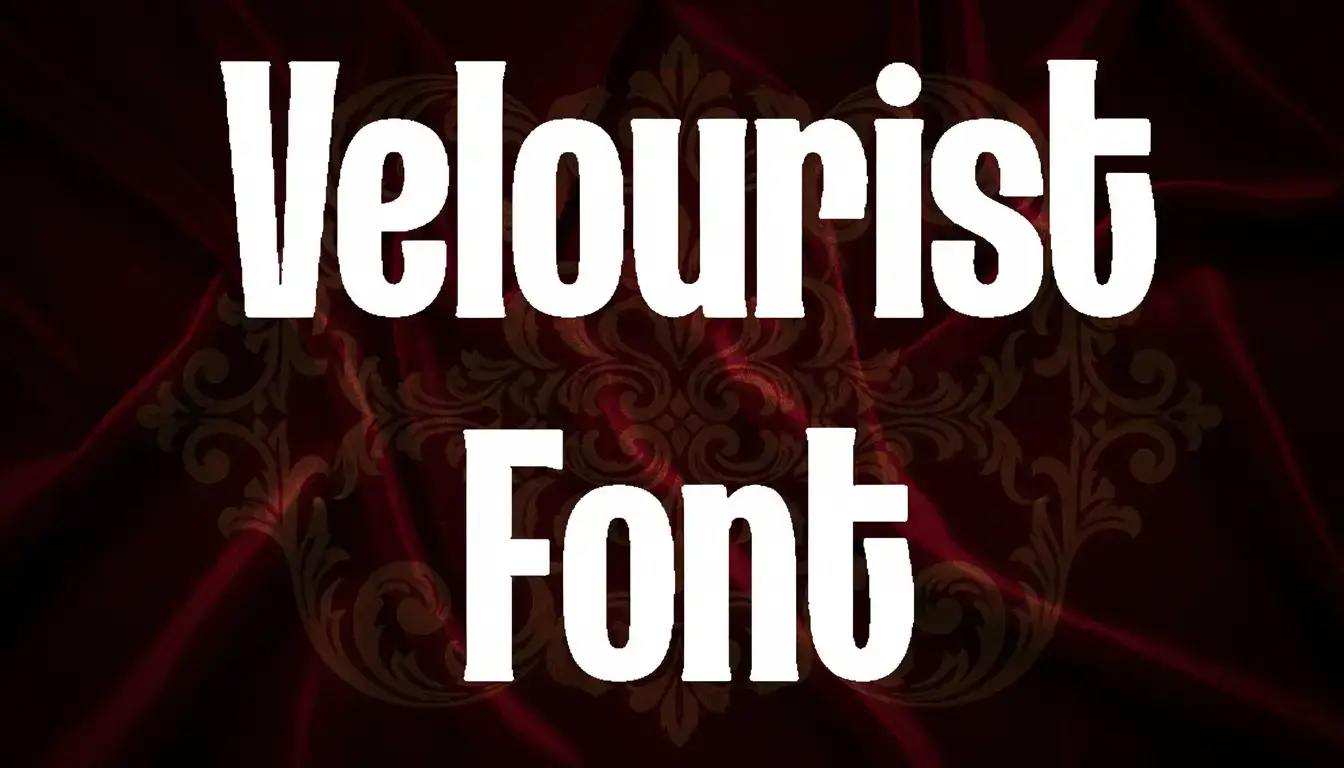
Velourist Font
Velourist
Velourist is a fancy font made by Fargun Studio. It's a decorative display font with plenty of personality, made to grab attention. It's a free download, and you can try it with your own text in the preview above first.
What You Can Type With Velourist
You get every letter from A to Z in both cases and all the numbers from 0 to 9, which means Velourist can handle full sentences, dates and prices. Everyday marks like &, !, ? and @ are there too. Thanks to its accented letters, it also works for Spanish, French, German, Portuguese and Italian, not just English.
Where Velourist Works Best
Think of Velourist for posters, logos and eye-catching headlines. Use it for one standout word or headline and let simpler fonts handle the rest.
Does Velourist support accented letters?
Yes. Velourist includes the accented letters needed for Spanish, French, German, Portuguese and Italian, so it works for more than just English.